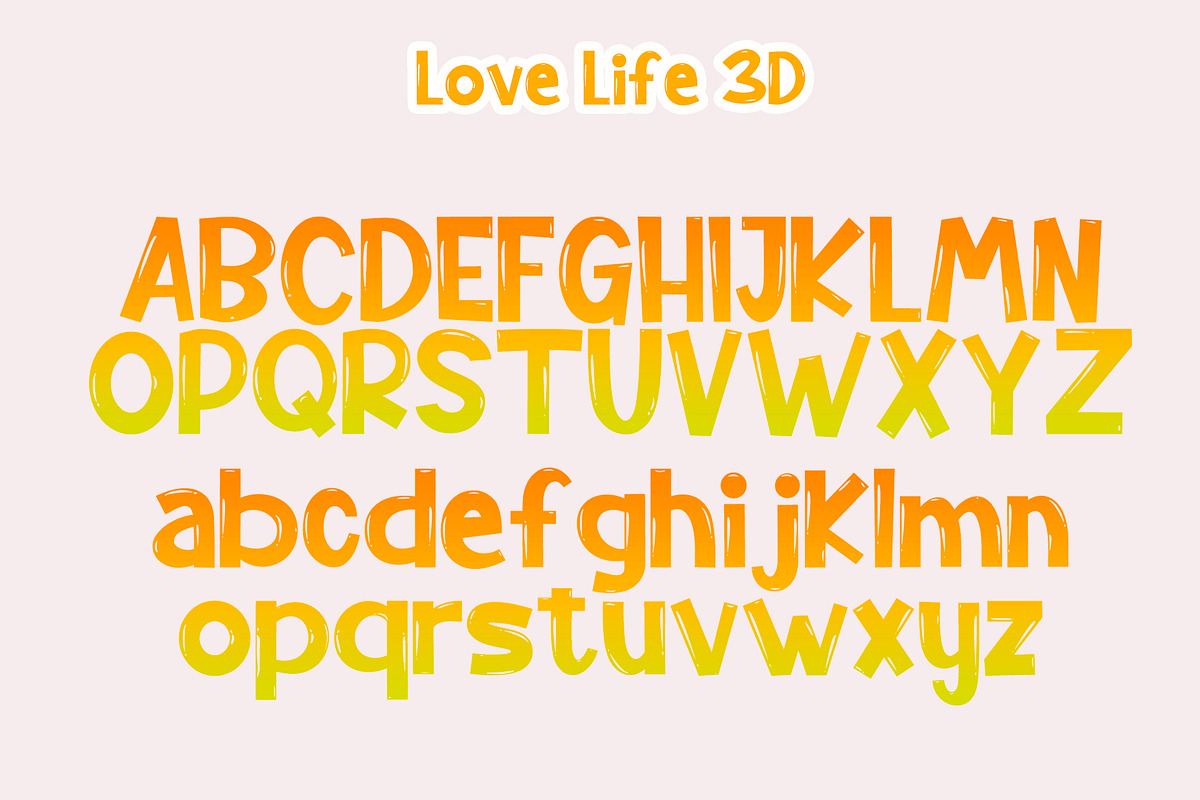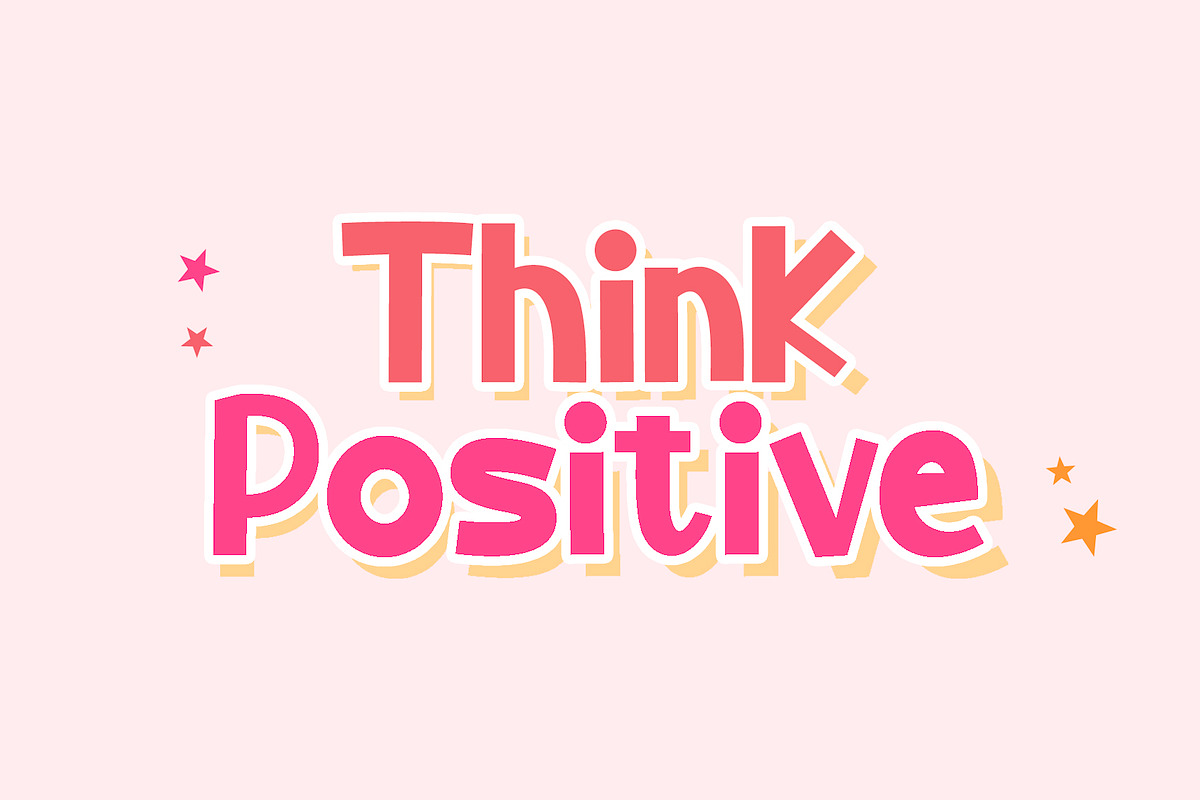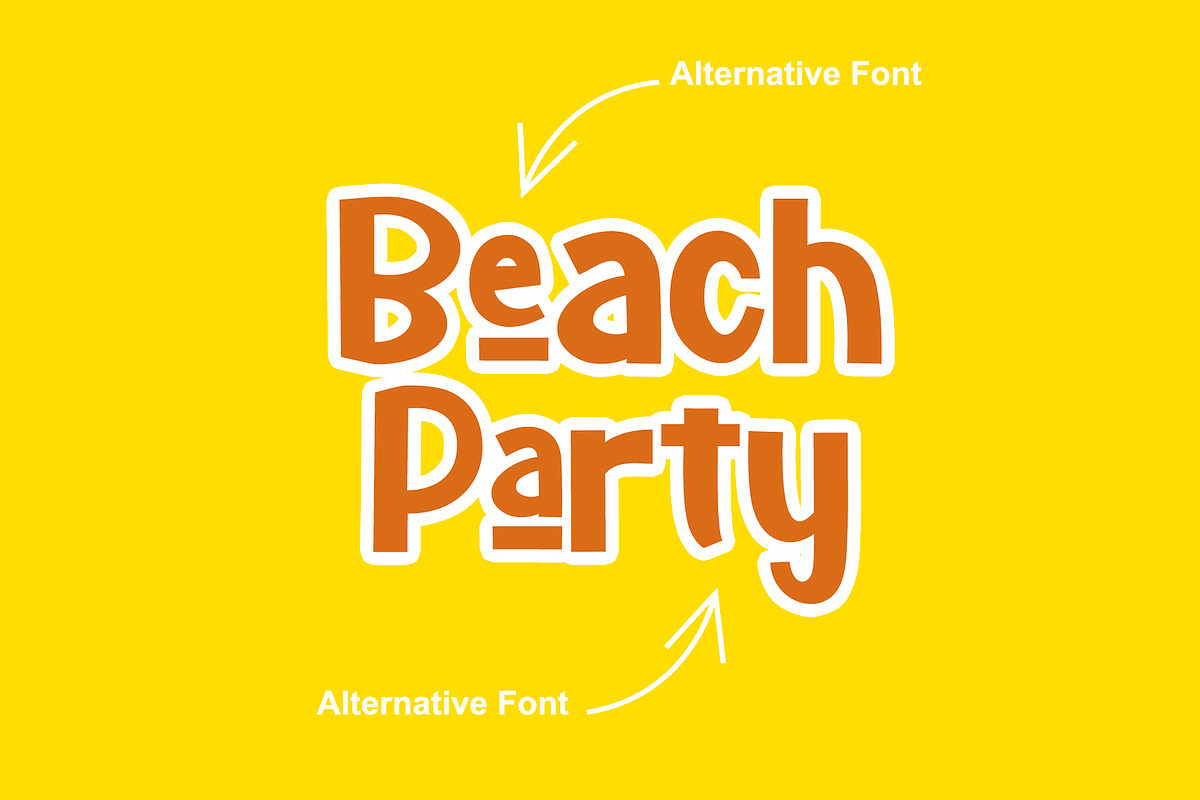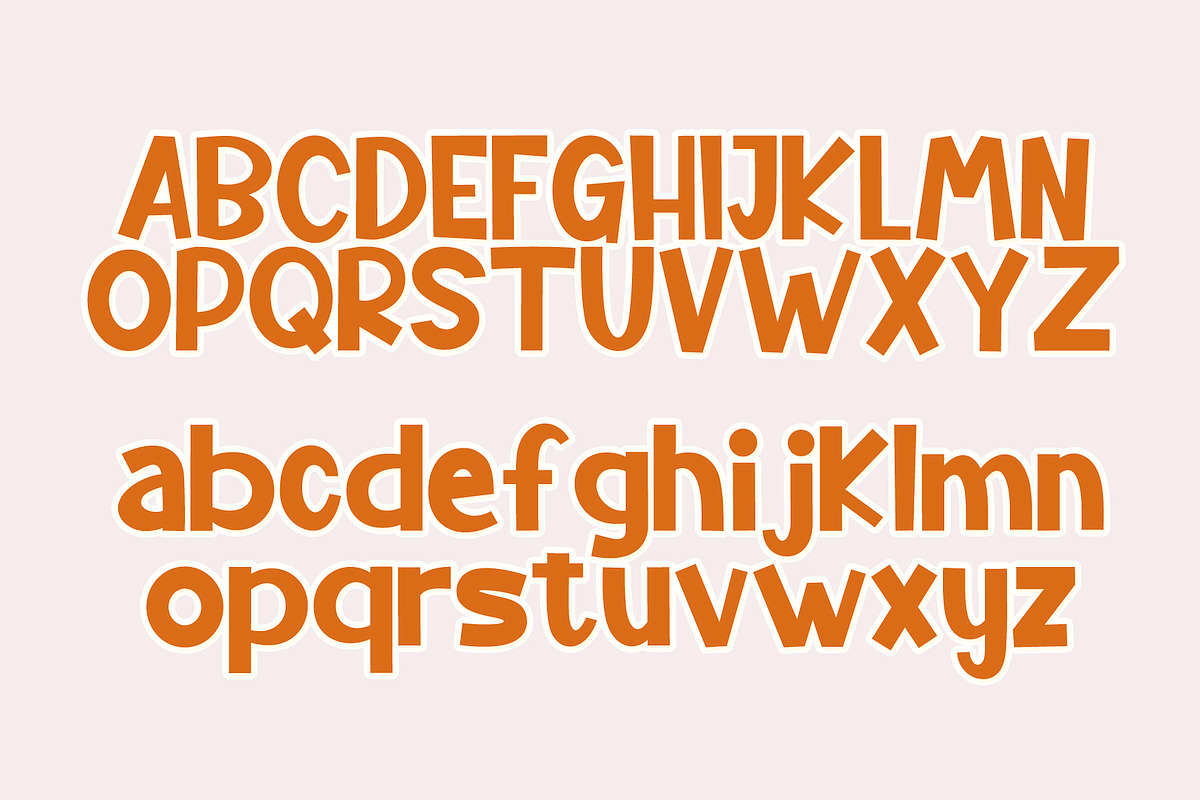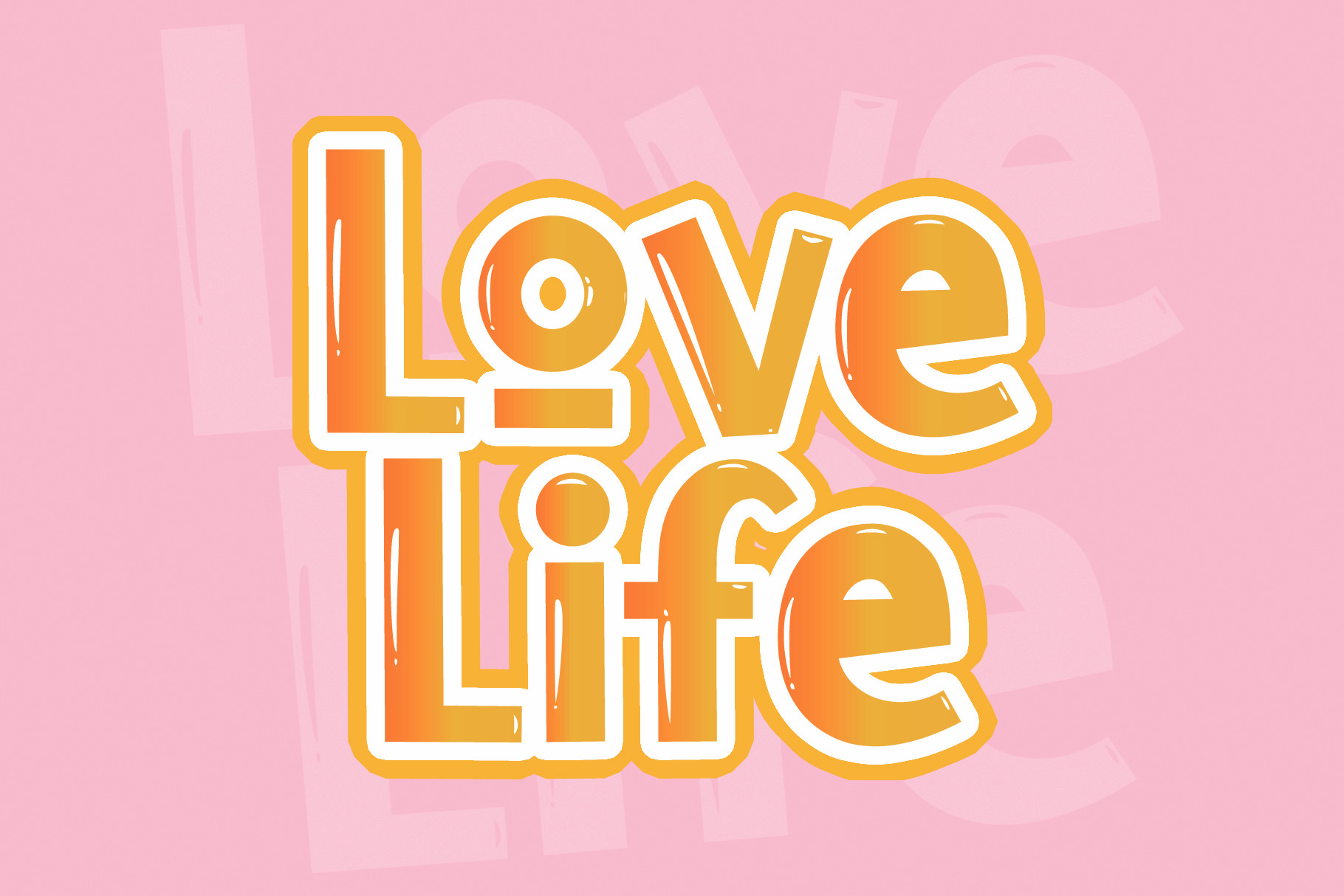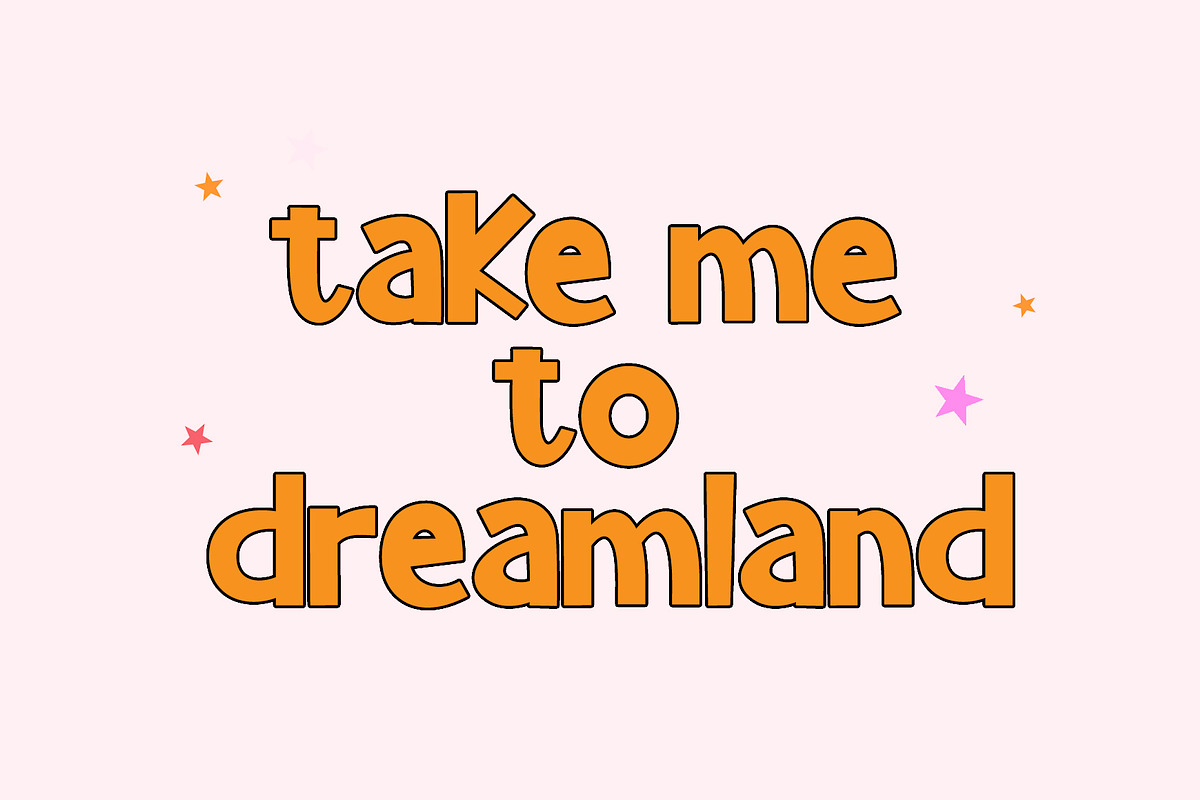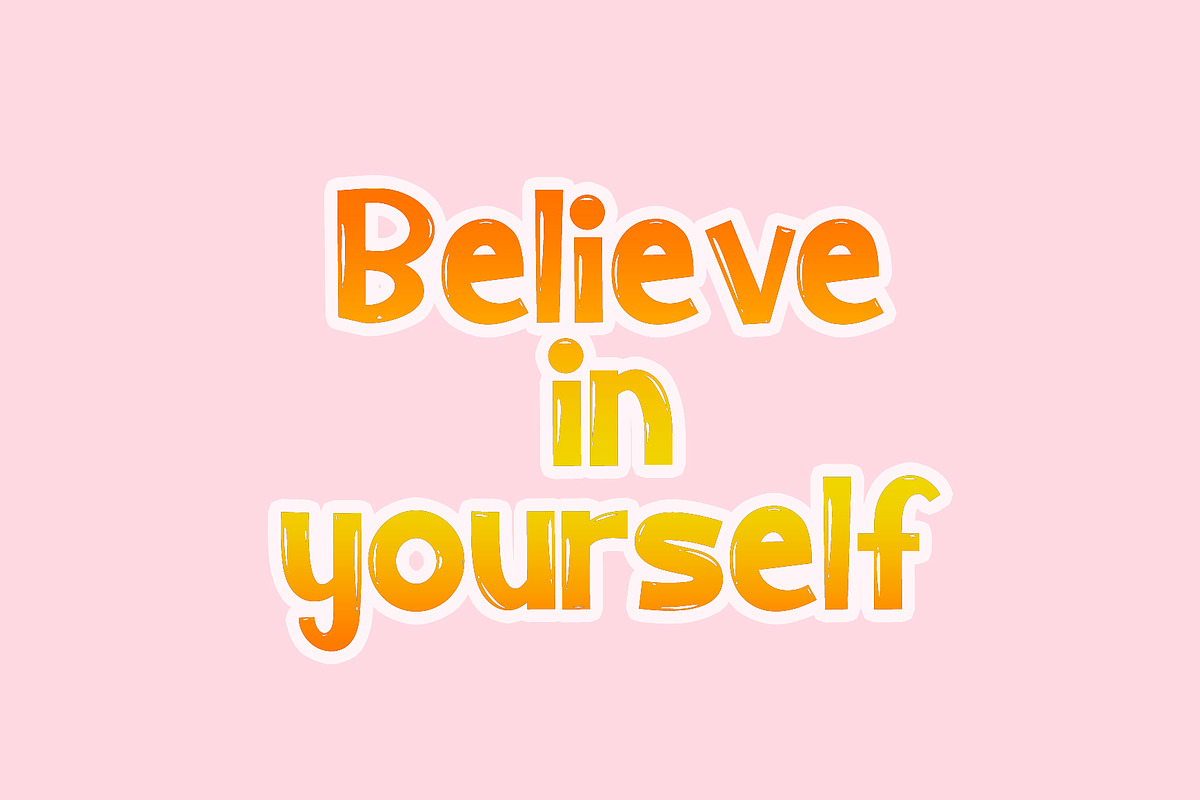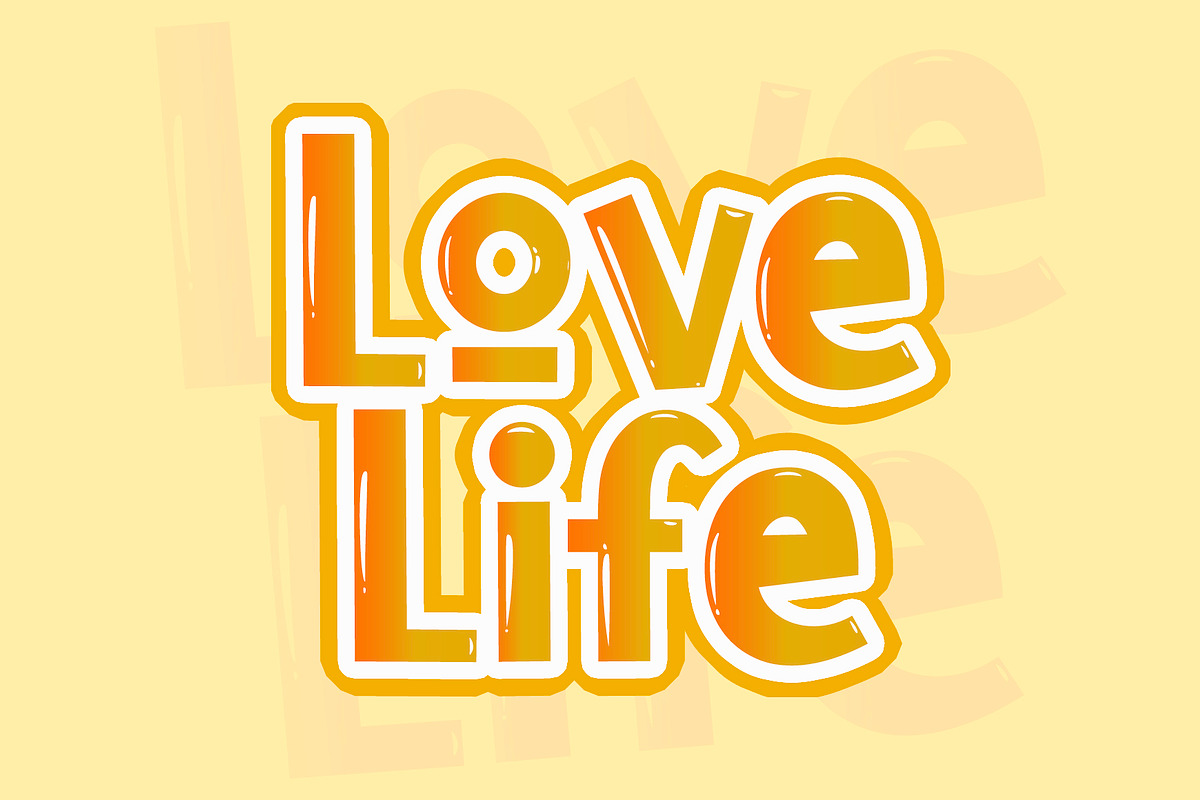
Love Life - Display Font
Love Life is a display font with two styles and Svg Hearts.
This font comes with regular and 3D versions. These two fonts work together to complete your perfect design! Love Life is perfect for branding, logos, social media quotes, stickers, posters, vintage designs, wall art and more!